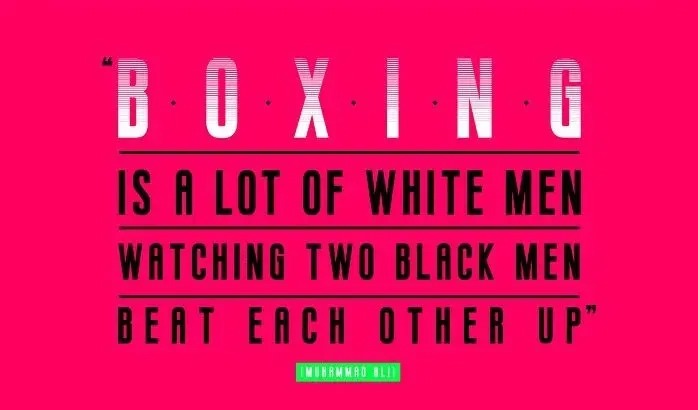
I am happy and pleased to present to you a very powerful display font. Introducing BOXING Font, designed and shared by Tano Veron. BOXING is a typography inspired by retro boxing posters, taking gestures condensed & sans serif style. It is strong, tall, & robust.